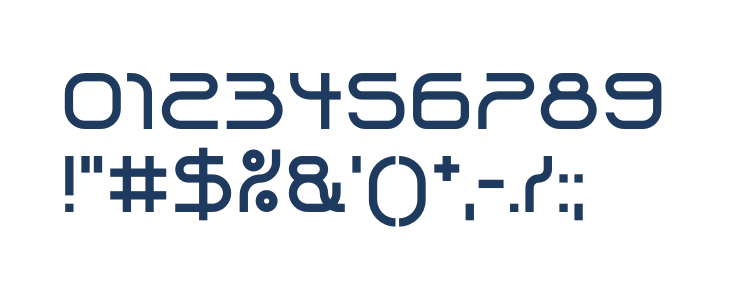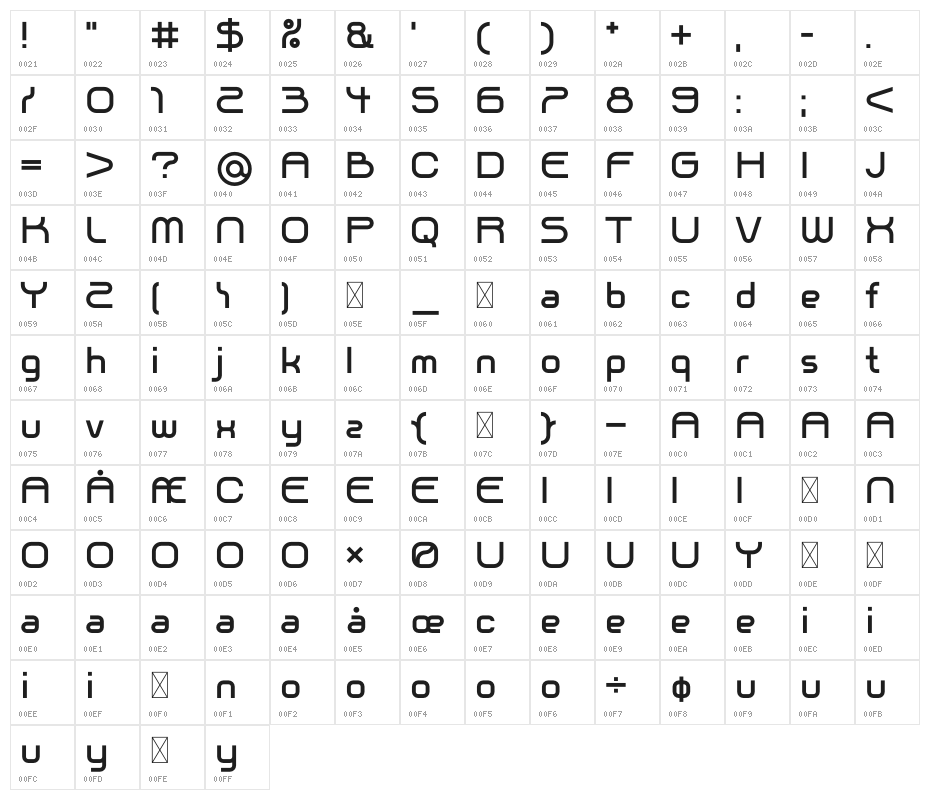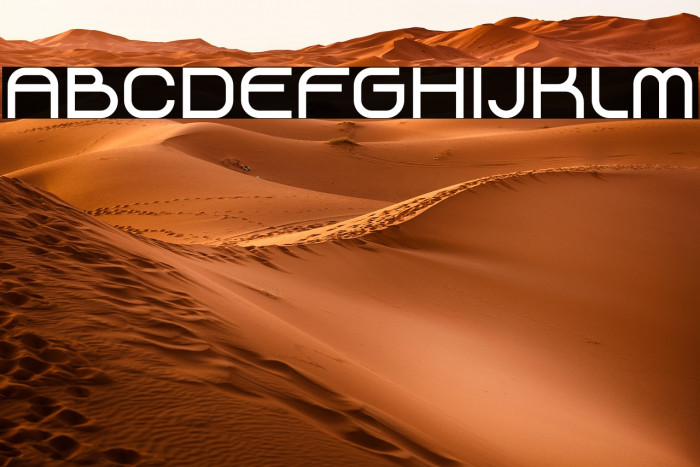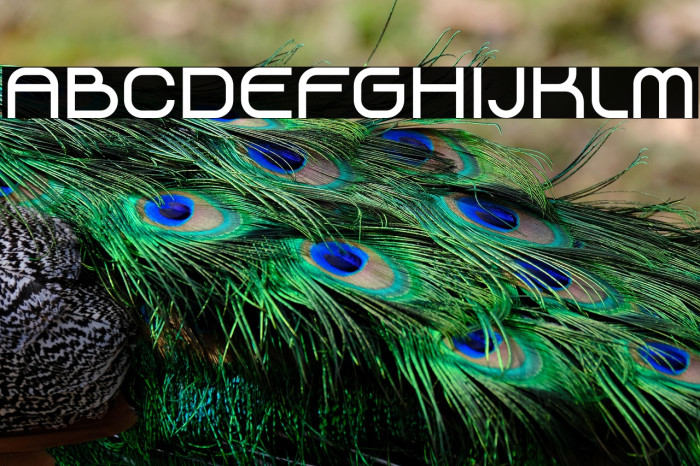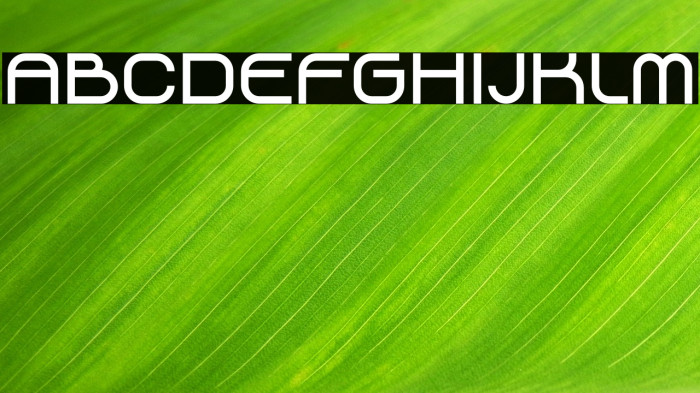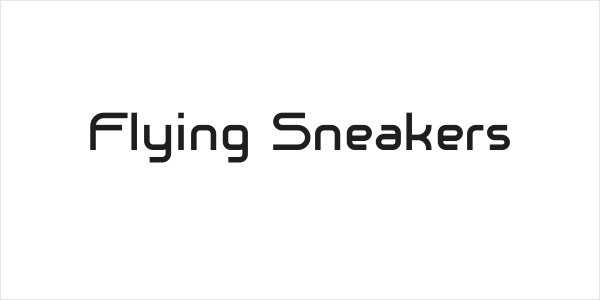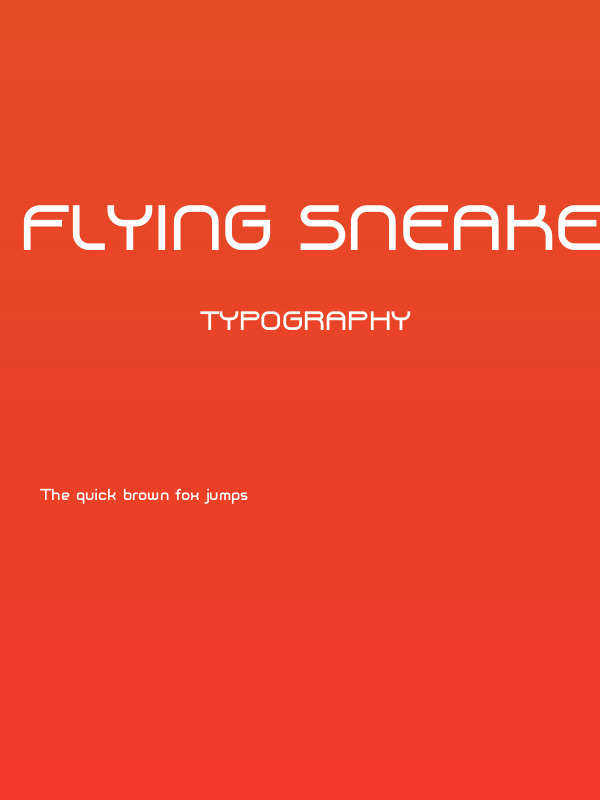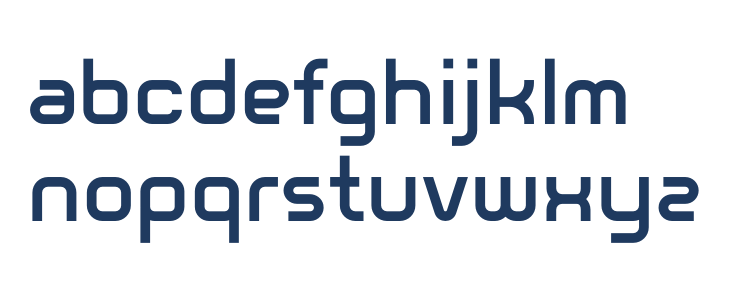
Flying Sneakers Font
Flying Sneakers Description
This font features a modern and sleek design with a geometric structure that emphasizes clean lines and rounded edges. The uppercase and lowercase letters maintain a consistent height, contributing to a uniform appearance. The numerals are distinct and easy to read, with a futuristic touch that aligns with the overall style. Special characters are well-integrated, maintaining the font's cohesive look. The design is minimalistic yet bold, making it suitable for contemporary projects that require a fresh and innovative aesthetic.
| Use Case | Headlines, Logos, Digital interfaces |
| Proposed Projects | Ideal for tech branding, modern advertising, futuristic posters, and digital interfaces. |